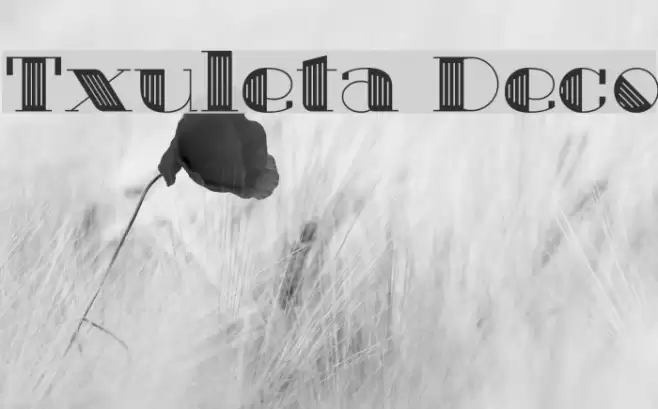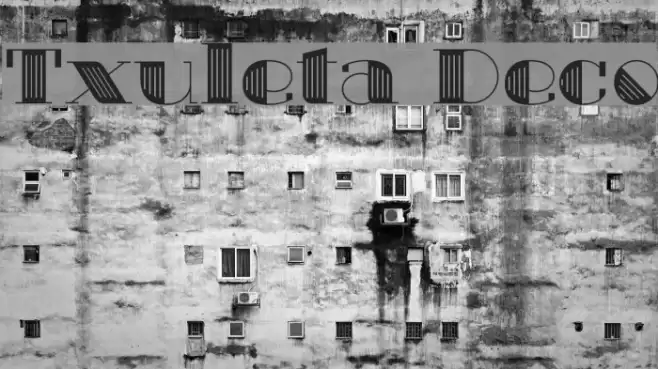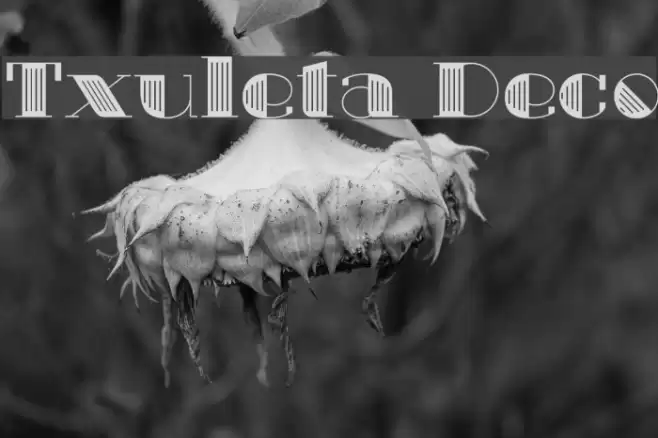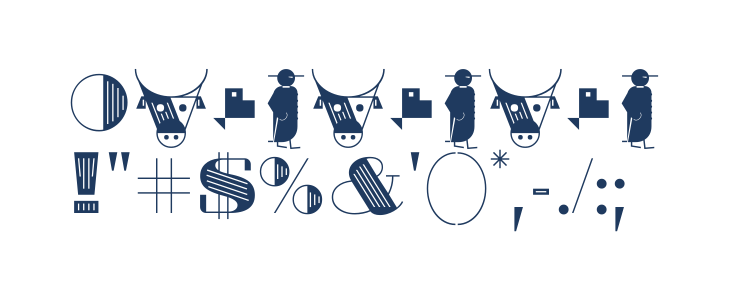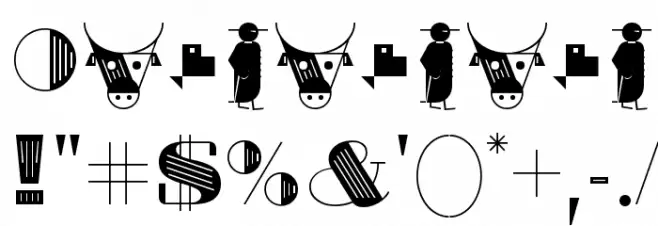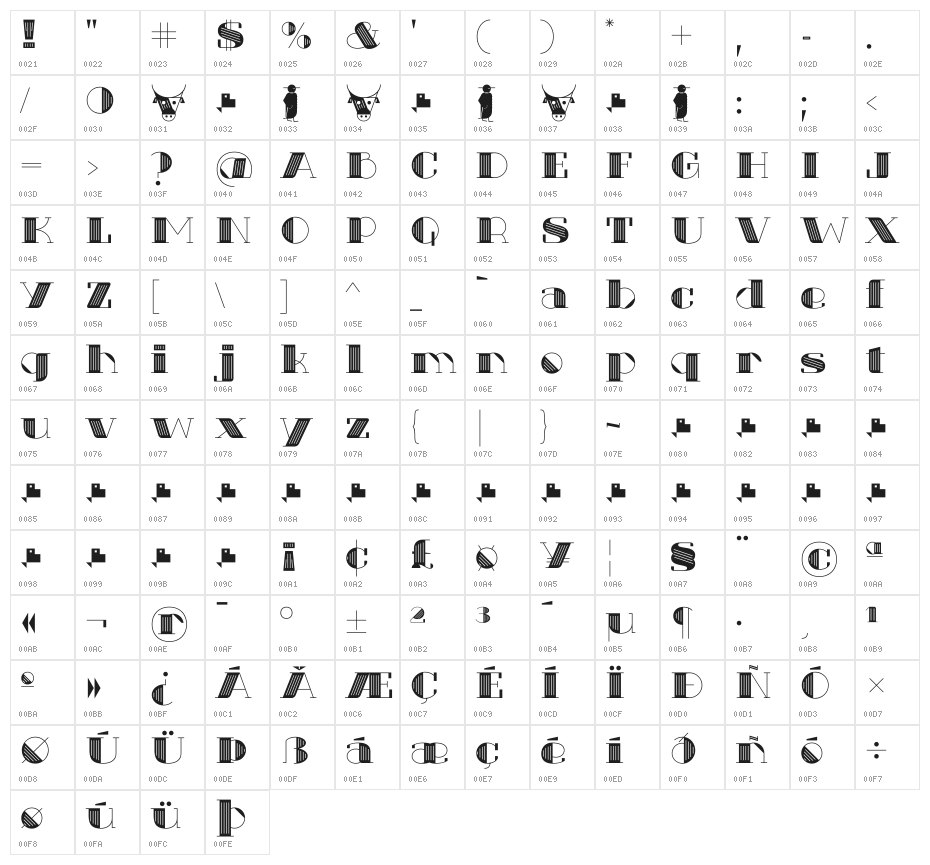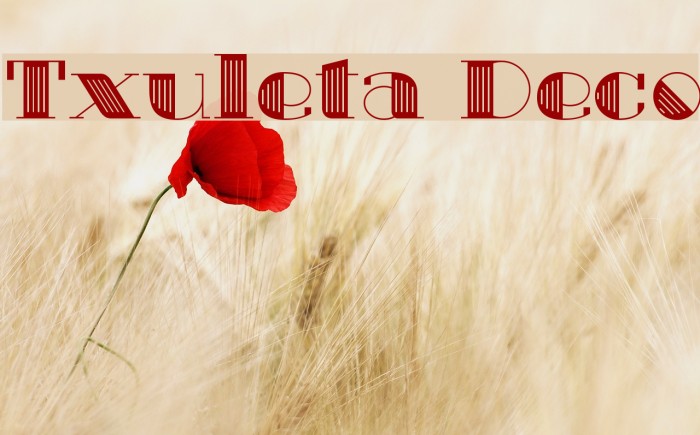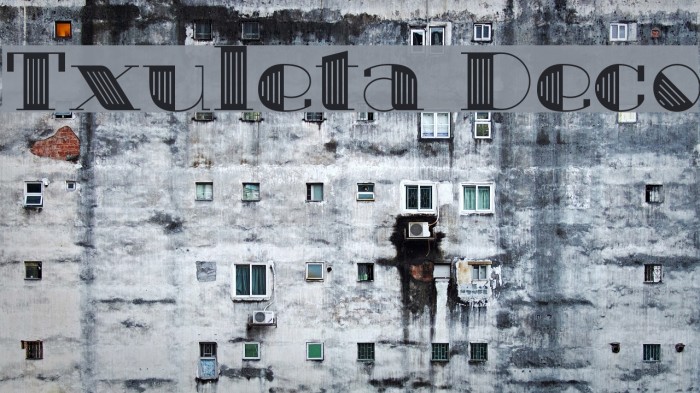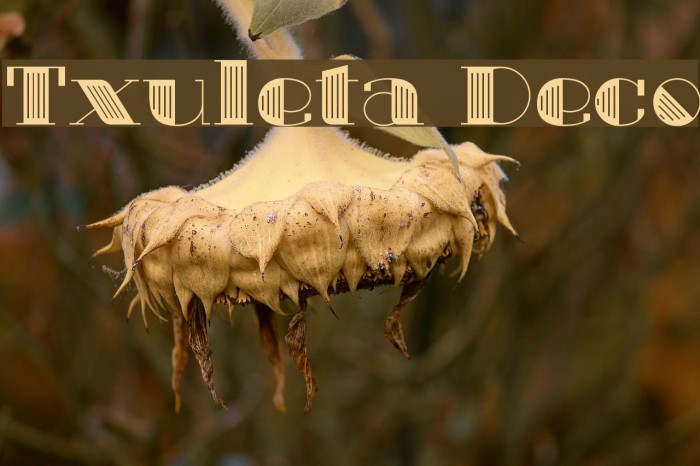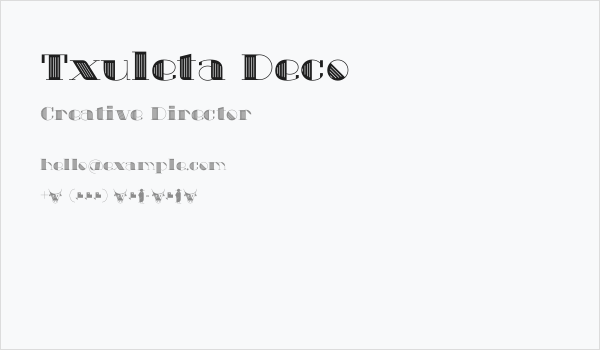
Txuleta Deco Font
Txuleta Deco Description
This font features a unique and decorative style with a distinct Art Deco influence. The uppercase letters are characterized by bold, geometric shapes with vertical lines and intricate patterns, creating a sense of movement and rhythm. The lowercase letters maintain the same decorative elements, offering a cohesive look. The numerals and special characters are equally stylized, with some incorporating playful and whimsical elements. This font's design is both eye-catching and sophisticated, making it suitable for projects that require a touch of elegance and creativity.
A decorative Art Deco-inspired font with bold geometric shapes and intricate patterns from Uncategorized fonts.
- Proposed Projects: Ideal for branding, posters, invitations, and any design project that seeks to evoke a vintage or sophisticated aesthetic.
- Overall Style: Vintage, Decorative